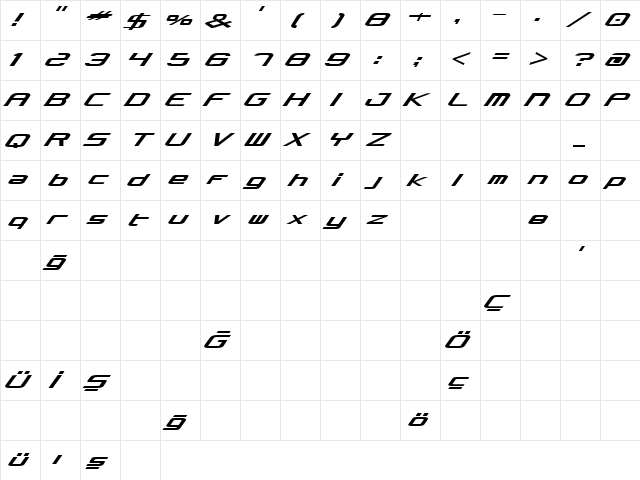
PCLifeWide Glide Regular
Design Context for PCLifeWide Glide Typeface
PCLifeWide Glide takes a measured approach to typography — its balanced proportions and neutral character make it a reliable workhorse for both digital and print work.
Pro Tip: Use PCLifeWide Glide in both headline and body roles to test its range before committing to a single application.